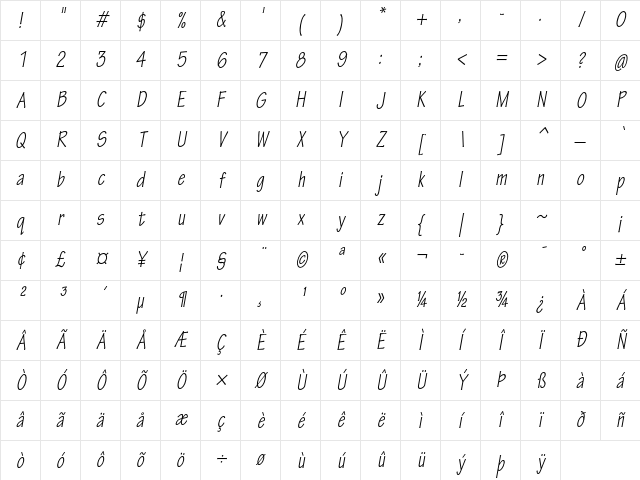
Tekton Pro Condensed Oblique
Style: Condensed Oblique
Designer: David Siegel
Complete Tekton Pro Condensed Oblique glyph index. Displaying only characters natively supported by Tekton Pro Condensed Oblique font.
Design Context for Tekton Pro
Tekton Pro is a composed and adaptable typeface that performs quietly and consistently across a wide range of design contexts. The slanted form adds forward momentum and visual energy. Its narrow stance lets it pack a punch even in space-constrained designs.
Pro Tip: Use Tekton Pro for emphasis, pull quotes, and subheadings where its slanted energy can add rhythm to the layout.